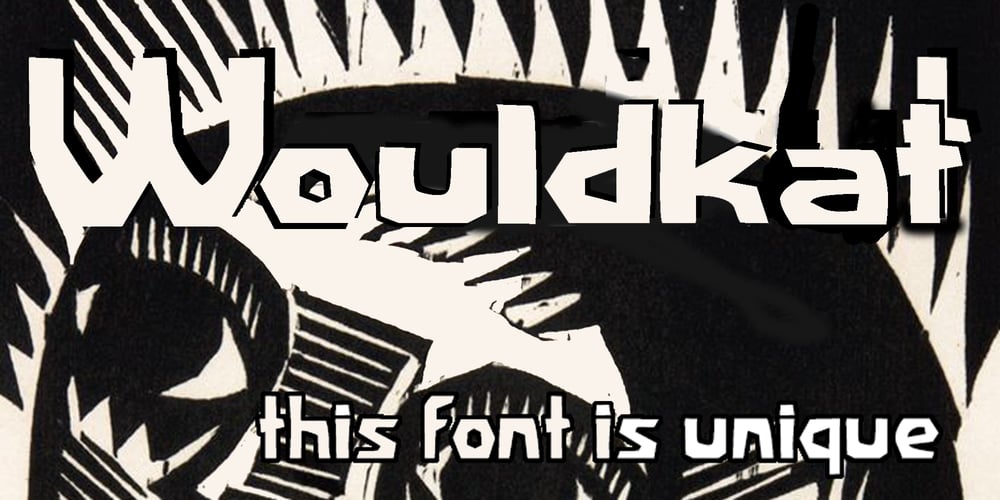
Wouldkat Font Family was designed by Joachim Frank and published by Joachim Frank. Wouldkat contains 1 styles and family package options. Inspired by an old house font of an anthroposophical hospital in Germany, this font was created: coarse, irregular, with corners and edges.In nature there are no right angles, no symmetries, no evenness: and so is this font.Tis is not a fine font, Like a woodcut this font roars: Look at me, I am here! Ideal for posters, leaflets, posters, billboards.Designed by Joachim Frank (Germany) in 2021